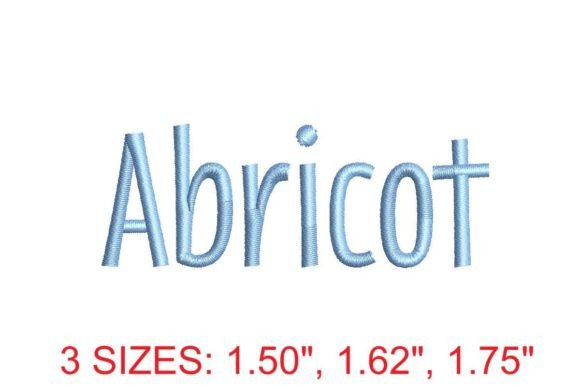
Introducing the Exquisite Abricot Embroidery Font
The Abricot Embroidery Font is a remarkable design that merges elegance with practicality, offering a unique solution for those who seek precision and artistry in their embroidery projects. This font is not merely a collection of letters; it's a tool that can significantly enhance your creative output and professional endeavors. Whether you are an experienced embroiderer or just beginning your journey into textile arts, the Abricot Embroidery Font provides a versatile option that supports a wide range of applications.
Why the Abricot Embroidery Font Matters
At its core, the Abricot Embroidery Font is designed to meet the needs of both hobbyists and professionals. Its strategic utility lies in its ability to facilitate precise and consistent results, which is essential for creating high-quality embroidery. The font's design allows for seamless integration into various projects, from personalized gifts to branding materials, making it an invaluable asset for anyone looking to elevate their work.
One of the key advantages of the Abricot Embroidery Font is its adaptability. It is tailored for use across multiple embroidery machines, ensuring that users can achieve consistent results regardless of their equipment. This versatility is particularly beneficial for small business owners and entrepreneurs who may need to scale their operations while maintaining quality standards.
Strategic Use of the Abricot Embroidery Font
To fully leverage the potential of the Abricot Embroidery Font, it's important to consider how it fits into your overall strategy. For instance, if you're planning to create monograms for clients, this font can streamline the process by providing a consistent and elegant look. Similarly, for those involved in marketing or branding, the font's refined appearance can help reinforce brand identity and create a cohesive visual experience.
When approaching the use of the Abricot Embroidery Font, it's crucial to align it with your specific goals. Whether you're aiming to increase productivity, improve customer experience, or enhance learning outcomes, the font should be selected based on its ability to support these objectives. This thoughtful approach ensures that the font becomes a strategic tool rather than a mere aesthetic choice.
Practical Applications and Real-World Examples
The Abricot Embroidery Font finds its place in numerous real-world scenarios. For example, educators might use it to create engaging classroom materials that combine creativity with educational value. Freelancers could benefit from its versatility in producing custom designs for clients, allowing them to offer a unique service that stands out in a competitive market.
Moreover, the font's ability to produce intricate details makes it ideal for creating stunning textile embellishments. This feature is particularly appealing to hobbyists who enjoy experimenting with different techniques and styles. By incorporating the Abricot Embroidery Font into their projects, they can achieve a level of craftsmanship that elevates their work and brings satisfaction to both the creator and the recipient.
Planning Tips and Strategic Observations
Before relying on the Abricot Embroidery Font for your projects, it's essential to plan thoughtfully. Consider the context in which you will be using the font and how it aligns with your broader goals. For instance, if you're launching a new product line, the font should reflect the brand's identity and resonate with your target audience.
Additionally, it's important to understand the limitations of the font. While it offers a wide range of characters and styles, it's crucial to recognize that not every design will translate perfectly into embroidery. Therefore, it's advisable to test the font with sample projects before committing to larger-scale production. This proactive approach helps mitigate risks and ensures that the final outcome meets your expectations.
Risks of Using the Abricot Embroidery Font Without Clear Goals
Using the Abricot Embroidery Font without clear goals or context can lead to suboptimal results. In the absence of a defined purpose, the font may become a random choice rather than a strategic one. This lack of intentionality can result in designs that fail to resonate with the intended audience or fall short of the desired impact.
Furthermore, without a clear understanding of how the font fits into your overall strategy, you may overlook opportunities to maximize its potential. It's essential to view the Abricot Embroidery Font as a tool that enhances your creative process and supports your objectives, rather than a standalone element that exists in isolation.
Intentional Use for Long-Term Value
To ensure that the Abricot Embroidery Font delivers long-term value, it's important to use it intentionally. This means considering not only the immediate benefits but also the long-term implications of your choices. For example, selecting the font based on its ability to support future growth and scalability can lead to more sustainable outcomes.
In conclusion, the Abricot Embroidery Font is more than just a design; it's a strategic asset that can significantly enhance your creative and professional endeavors. By understanding its strengths, considering its applications, and using it with intention, you can unlock its full potential and achieve remarkable results in your embroidery projects.